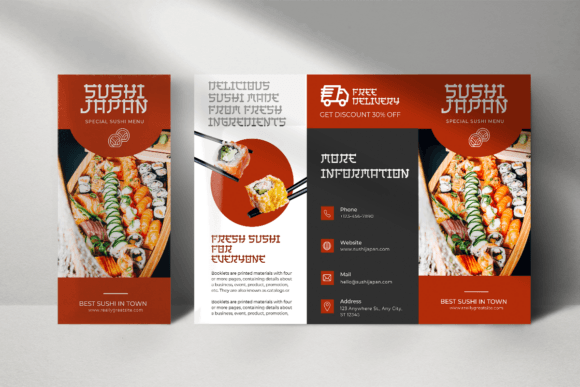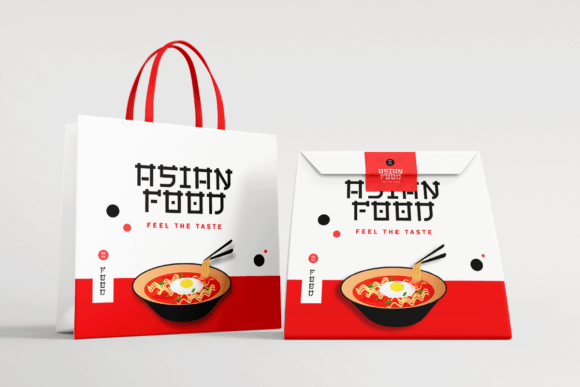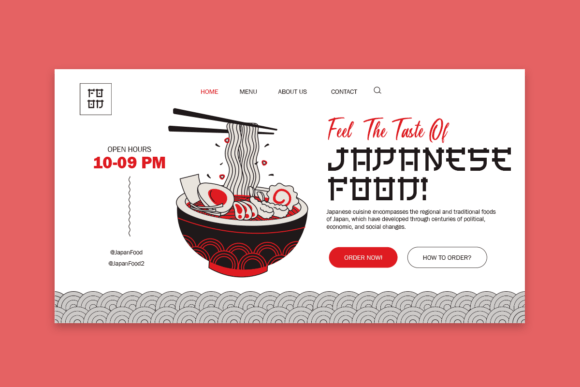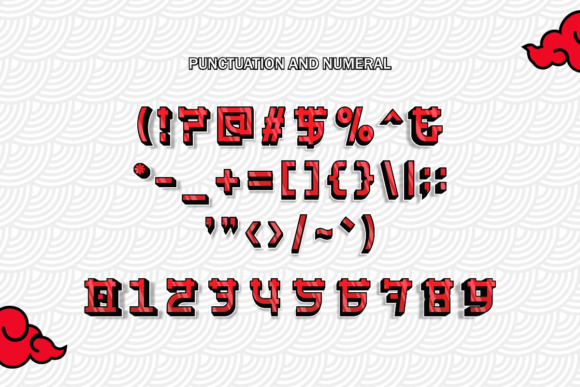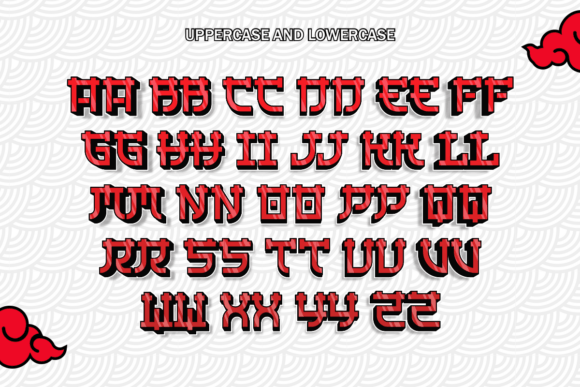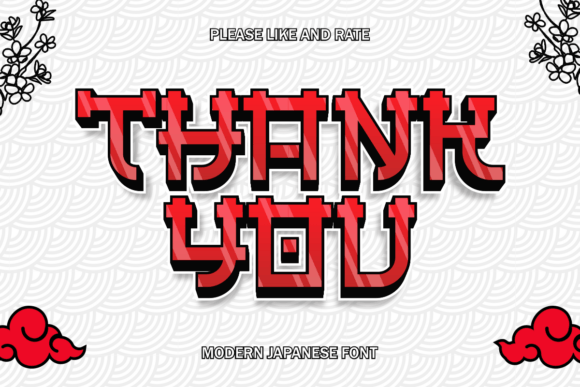
Introduction to Japan Tokyo Font
Have you ever found yourself lost in the vibrant streets of Tokyo, surrounded by neon lights and traditional temples? It’s a city that seamlessly blends modernity with ancient traditions, a perfect reflection of the creative spirit that fuels designers around the world. For those seeking to infuse their work with a unique Japanese flair, we’re excited to introduce the Japan Tokyo Font.
As a valuable resource for designers, the Japan Tokyo Font combines modern style with traditional Japanese influences, creating a sleek and minimalist design that’s perfect for branding, logos, posters, and digital projects. Its authentic Japanese flair adds a touch of creativity to any project, making it an essential design resource for those looking to stand out in the crowd.
With its high-quality design and PUA encoded features, accessing the cute glyphs and swashes is a breeze, making it an ideal choice for designers working on creative projects with a transparent background or those who want to add a free download to their design arsenal.
Key Features of Japan Tokyo Font
- Unique and stylish design inspired by Tokyo’s vibrant culture, ideal for creative projects and design resources.
- High-quality font with transparent background, allowing for seamless integration into various design elements.
- Includes a range of characters, including Japanese Kanji, making it suitable for multilingual designs.
- Designed with a high resolution of 300 DPI, ensuring crisp and clear typography in various sizes.
- Perfect for designers working on creative projects, such as posters, flyers, and business cards, where a unique and eye-catching font is required.
Honest Review: Japan Tokyo Font
I recently had the opportunity to work with the Japan Tokyo Font, and I must say it’s been a game-changer for my creative project. This font is a valuable design resource that brings a unique touch to any project.
- ✨ High quality design: The font is crisp and clean, making it perfect for printing and digital use.
- ✨ Versatile: The font can be used for a variety of projects, from business cards to websites, and even signage.
- ⚠️ Limited transparency options: The font doesn’t support transparent backgrounds, which may limit its use in certain design scenarios.
- ⚠️ Not suitable for all designs: The font’s style may not be suitable for every project, so it’s essential to use it thoughtfully.
Overall, I’m impressed with the Japan Tokyo Font. Its high quality and versatility make it a valuable addition to any design library. While it may have some limitations, I believe it’s a great resource for designers looking to add a unique touch to their projects.
Tips for Getting the Most Out of Japan Tokyo Font
To get the most out of the Japan Tokyo Font, use it in combination with other design elements to create a unique and creative project. Experiment with different font sizes, colors, and alignments to find the perfect look for your design.
Common Use Cases for Japan Tokyo Font
The Japan Tokyo Font is perfect for creating designs for travel, culture, and food-related projects. It’s also great for creating invitations, menus, and other design materials that require a high-quality font with a transparent background.